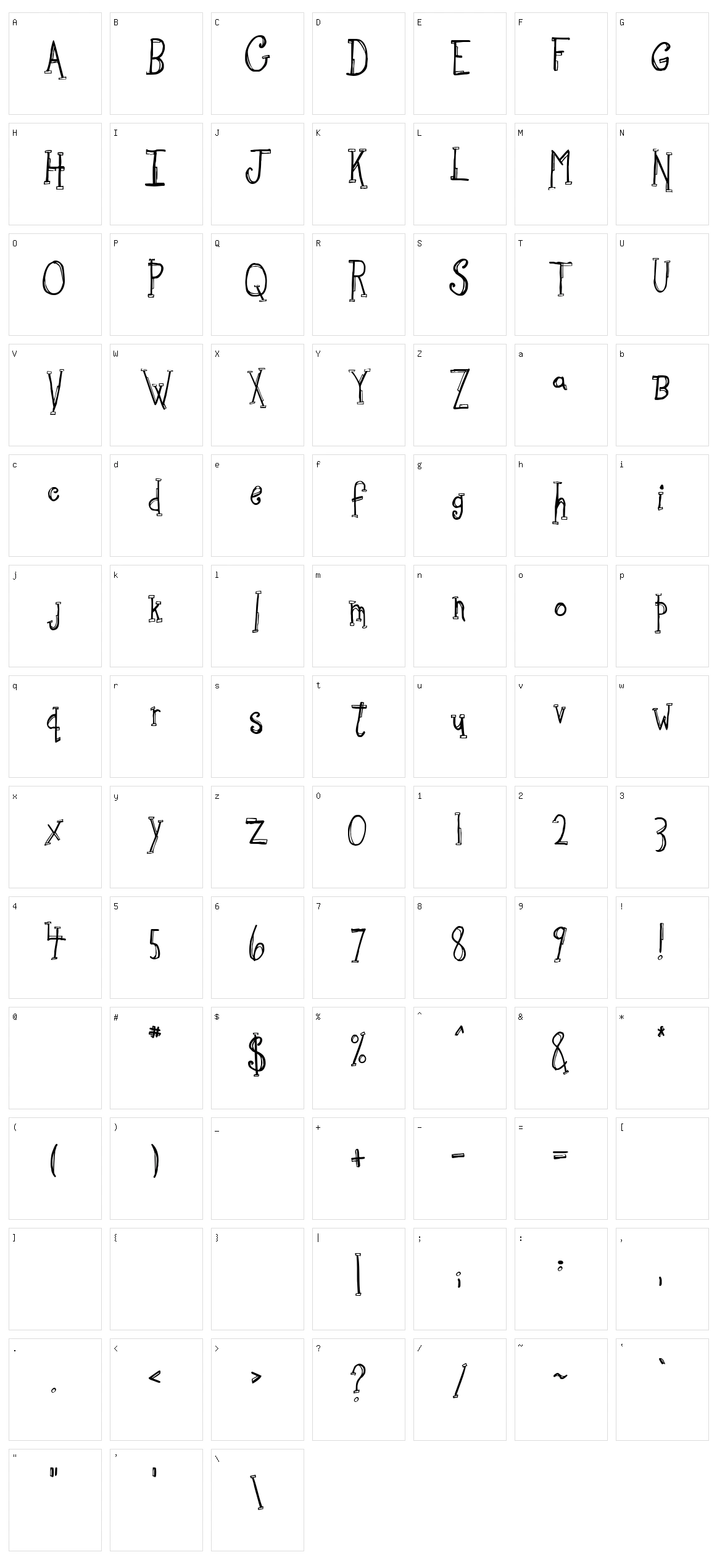
Sketchbook v1.0
I like to sketch sometimes. I'm not very good at it, though. Most everything turns into either letters or landscapes. But I was looking at some cartoons on the web, and the man had written sketchbook something like this. So I tried to simulate his style. I was pretty close, but no matter, it looks good.